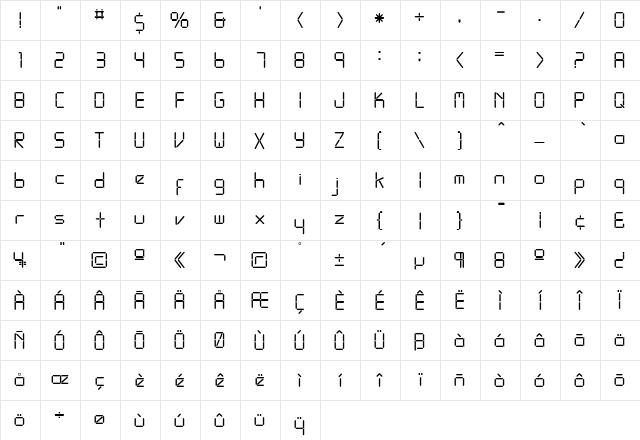
LEDFont Regular
Design Context for LEDFont Typeface
LEDFont is a composed and adaptable typeface that performs quietly and consistently across a wide range of design contexts.